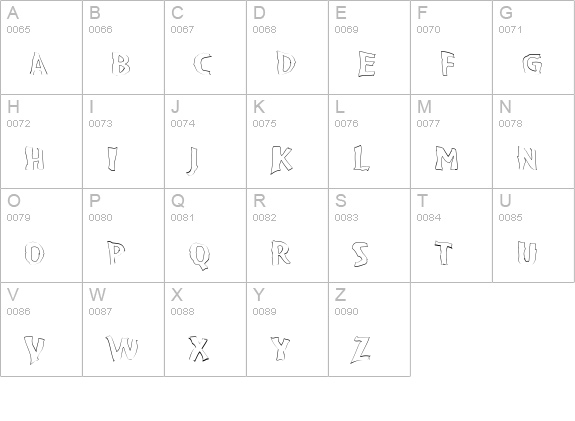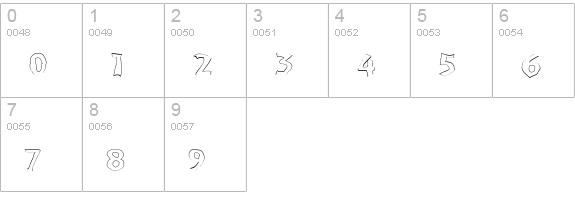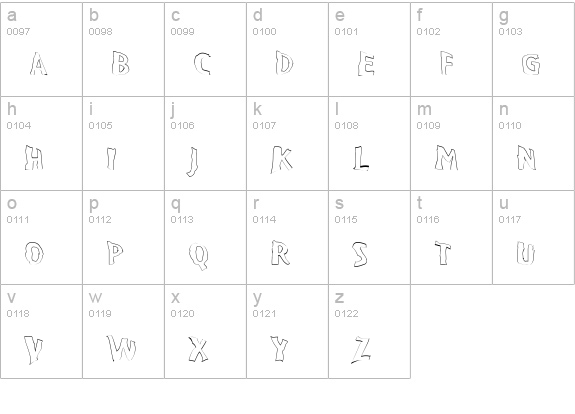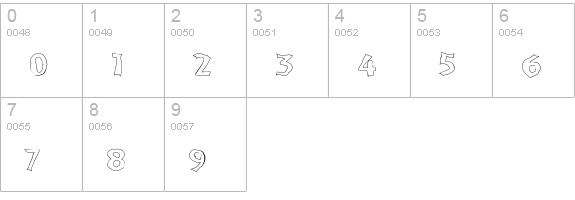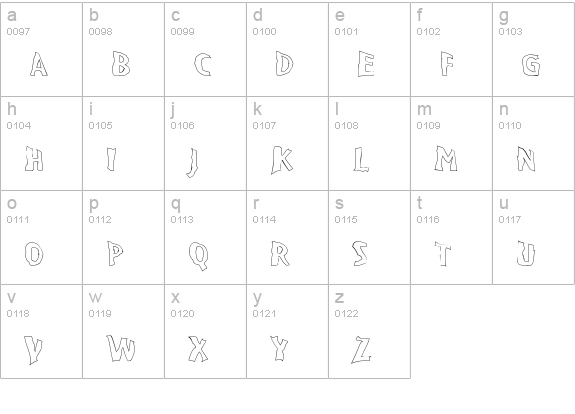
VTC BadPaint Outline Font Details
Introducing the VTC BadPaint Outline font, a bold and charismatic typeface designed to add a touch of creativity and edginess to your projects. This unique font combines the roughness of hand-drawn outlines with a modern twist, creating a visually striking and versatile font that is sure to make a statement. With its organic strokes and imperfect lines, VTC BadPaint Outline exudes a sense of artistic flair and raw energy. Whether you're designing a poster, logo, or branding materials, this font will instantly grab attention and leave a lasting impression. One of the best features of VTC BadPaint Outline is that it is free to download. That's right, you can get your hands on this captivating font without spending a dime. Simply head over to FontsMarket.com and easily access this font to enhance your creative endeavors. With VTC BadPaint Outline, you have the freedom to experiment and explore endless design possibilities. Its versatility allows it to be used in a variety of contexts, from grunge-inspired designs to contemporary projects seeking a touch of artistic rebellion. The character set of VTC BadPaint Outline is extensive, offering uppercase and lowercase letters, numerals, punctuation marks, and special characters. This ensures that you have all the tools you need to bring your vision to life and create captivating typography. So why wait? Unleash your creativity and download VTC BadPaint Outline for free at FontsMarket.com. Let your designs stand out from the crowd and captivate your audience with this one-of-a-kind font.